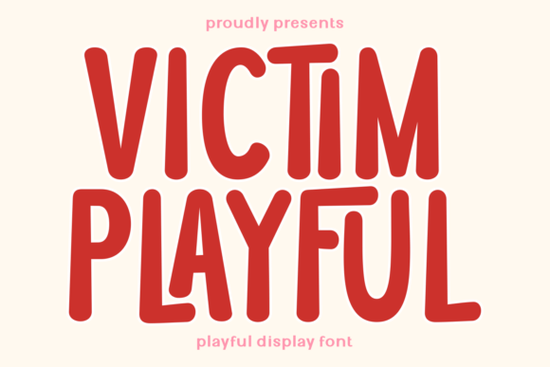
If you're looking for a font that brings warmth, whimsy, and a touch of childhood magic to your designs, the Victim Playful Font might be exactly what you need. Handcrafted with care, it’s got an organic, slightly bouncy feel that makes it instantly likable especially for projects aimed at kids or anyone who appreciates a friendly, approachable aesthetic.
This isn’t just another rounded sans-serif. The Victim Playful Font has personality: uneven strokes, soft curves, and letterforms that feel like they were drawn with crayons by someone full of joy. That makes it ideal for everything from baby onesie prints to kindergarten classroom posters, snack packaging, or cheerful greeting cards. It’s versatile enough for both digital and print use, and its charm translates beautifully across mediums whether you’re designing wall decals, mugs, or birthday party invitations.
What kinds of projects work best with Victim Playful Font?
Because of its gentle, hand-drawn vibe, this font shines in contexts where warmth and approachability matter most. Think:
- Children’s branding – daycare logos, toy store signage, or educational app interfaces
- Product packaging – especially for snacks, baby food, or organic milk brands
- Print-on-demand items – t-shirts with sweet slogans, nursery wall art, or personalized gift tags
- Greeting cards and stationery – birthday wishes, thank-you notes, or milestone announcements
It’s not meant for formal documents or corporate reports but that’s not a flaw. Its strength lies in emotional resonance, not rigidity. If your audience includes parents, teachers, or young kids, this font speaks their visual language.
How does it compare to other playful display fonts?
Not all fun fonts are created equal. Some lean too cartoonish; others feel stiff despite trying to be casual. Victim Playful strikes a balance it’s lively without being chaotic, and readable even at smaller sizes (though it’s best used as a headline or accent font).
If you’ve liked fonts like Hello Bold for its friendly weight or Mobie for its modern bounce, you’ll appreciate how Victim Playful adds a softer, more handmade touch. Similarly, if you’ve used Rough Bold for textured impact or Vespa for retro flair, consider Victim Playful when you want something gentler and more nurturing in tone.
Each of these fonts serves a different mood. Victim Playful isn’t about bold statements it’s about whispered giggles, bedtime stories, and crayon drawings taped to the fridge.
Just remember: while the font is perfect for child-focused designs, avoid using it in contexts that require high legibility at tiny sizes (like fine print on labels). Save it for headlines, logos, or decorative text where its character can truly shine.
Tips for pairing Victim Playful with other typefaces
Because it’s so expressive, pair it with simple, neutral fonts to avoid visual clutter. A clean sans-serif like Montserrat, Open Sans, or even a minimalist geometric typeface works well for body text or supporting information.
Also, give it breathing room. Use generous spacing, soft color palettes (think pastels or earthy tones), and avoid overcrowding layouts. Let the font’s natural irregularities tell part of the story.
And don’t forget texture! This font looks especially lovely over watercolor backgrounds, kraft paper textures, or subtle fabric patterns great for crafters creating printable party kits or handmade gift wrap.
- ✅ Test readability at your final output size especially for packaging or apparel
- ✅ Pair with a simple, neutral font for contrast and clarity
- ✅ Use in joyful, child-friendly, or nostalgic contexts not formal or technical ones
- ✅ Explore complementary fonts like Victim Playful alongside others in your toolkit for varied moods
When used thoughtfully, Victim Playful Font doesn’t just add letters to a design it adds feeling. And sometimes, that’s exactly what your project needs.